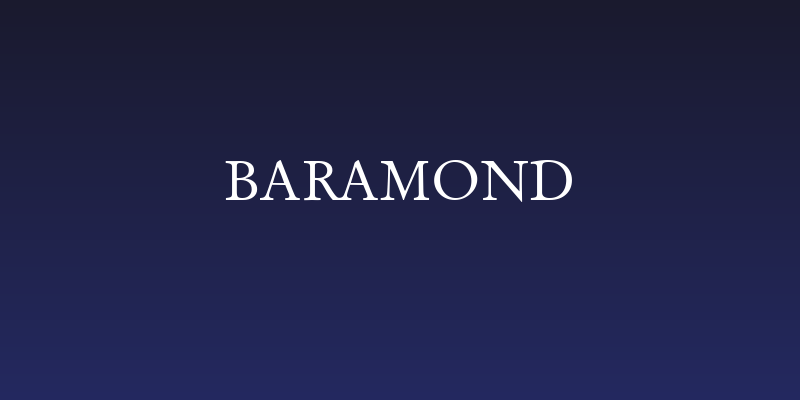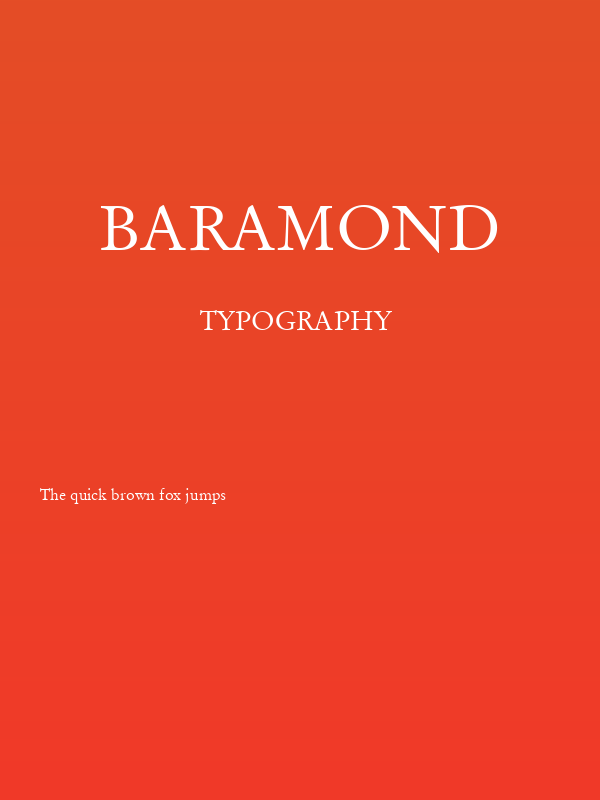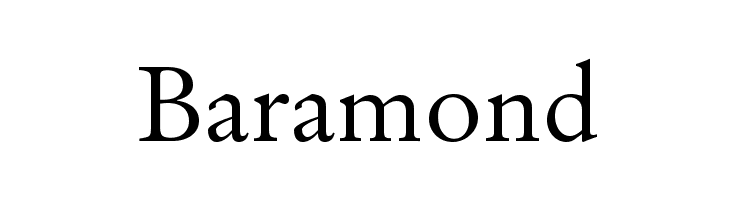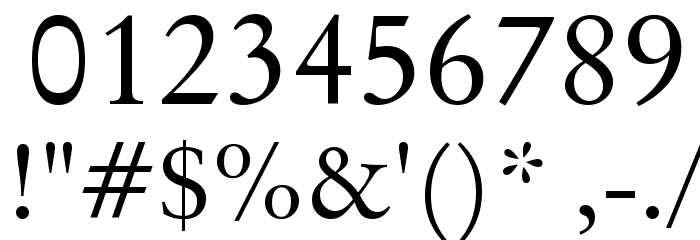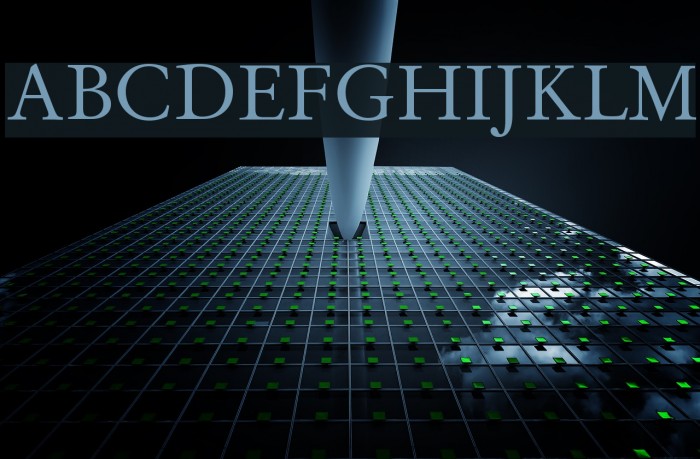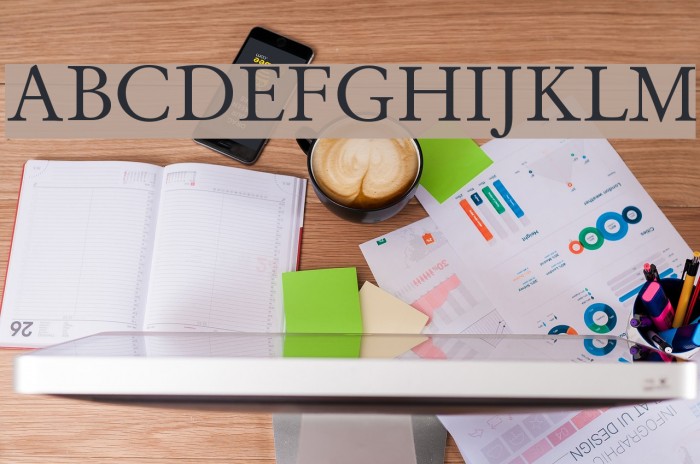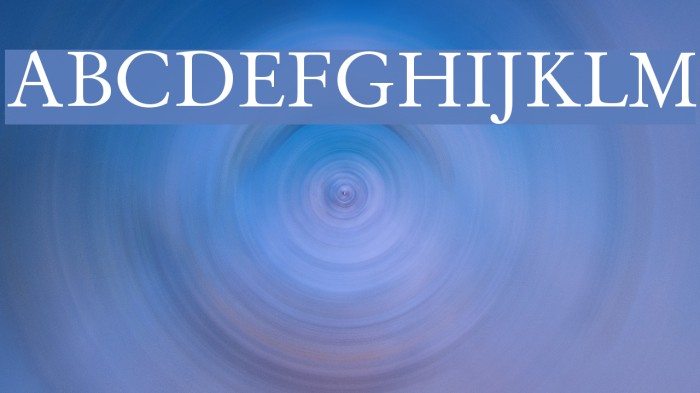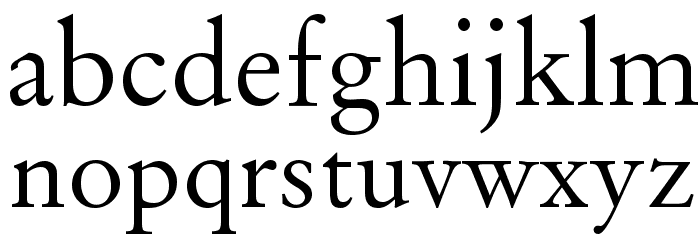
Baramond Font
Baramond Description
This font embodies a classic serif style with elegant and refined strokes. The serifs are pronounced, providing a traditional and sophisticated appearance. The uppercase letters are stately and well-proportioned, while the lowercase letters maintain a consistent flow with slight variations in stroke width, adding to the font's readability. The numerals are clear and distinct, complementing the overall design. Special characters are crafted with precision, ensuring they integrate seamlessly with the alphabetic characters. This font is versatile, suitable for both formal and creative applications.
| Overall Style | Classic |
| Use Case | Body text, Headlines, Editorial design |
| Proposed Projects | Ideal for book typesetting, formal invitations, branding, and editorial design. |